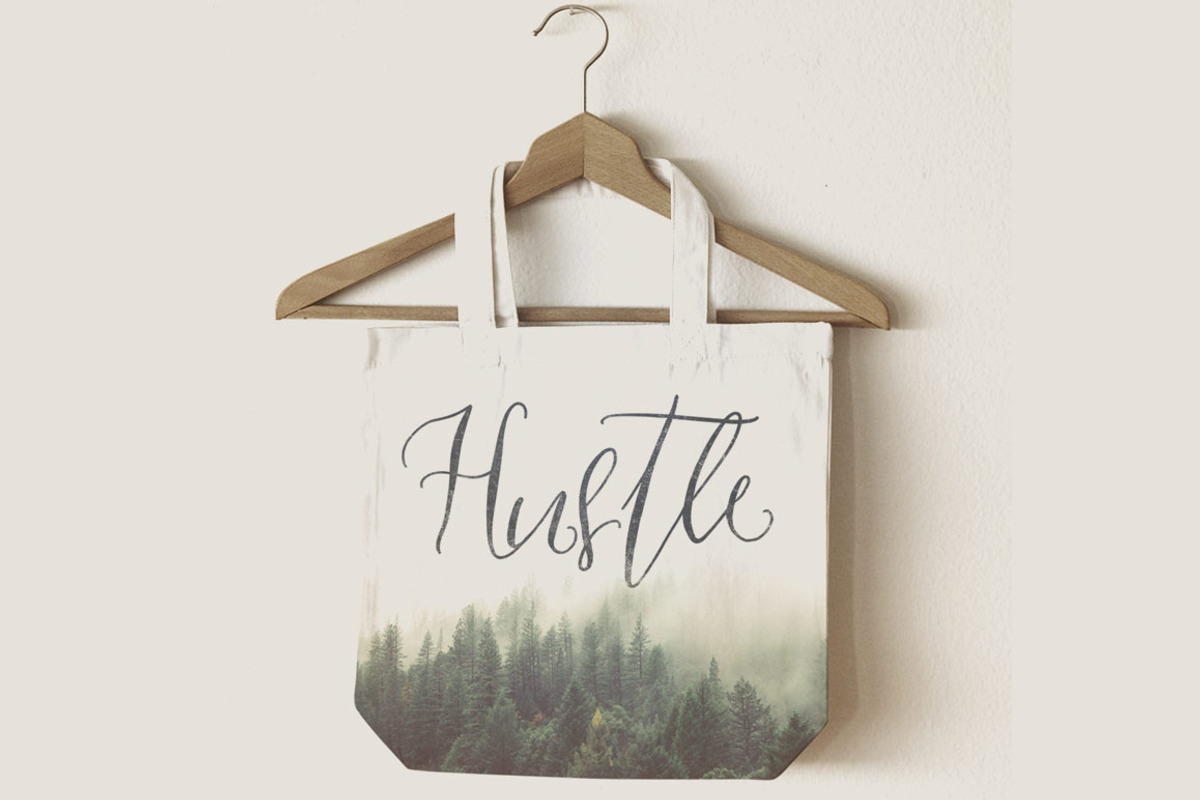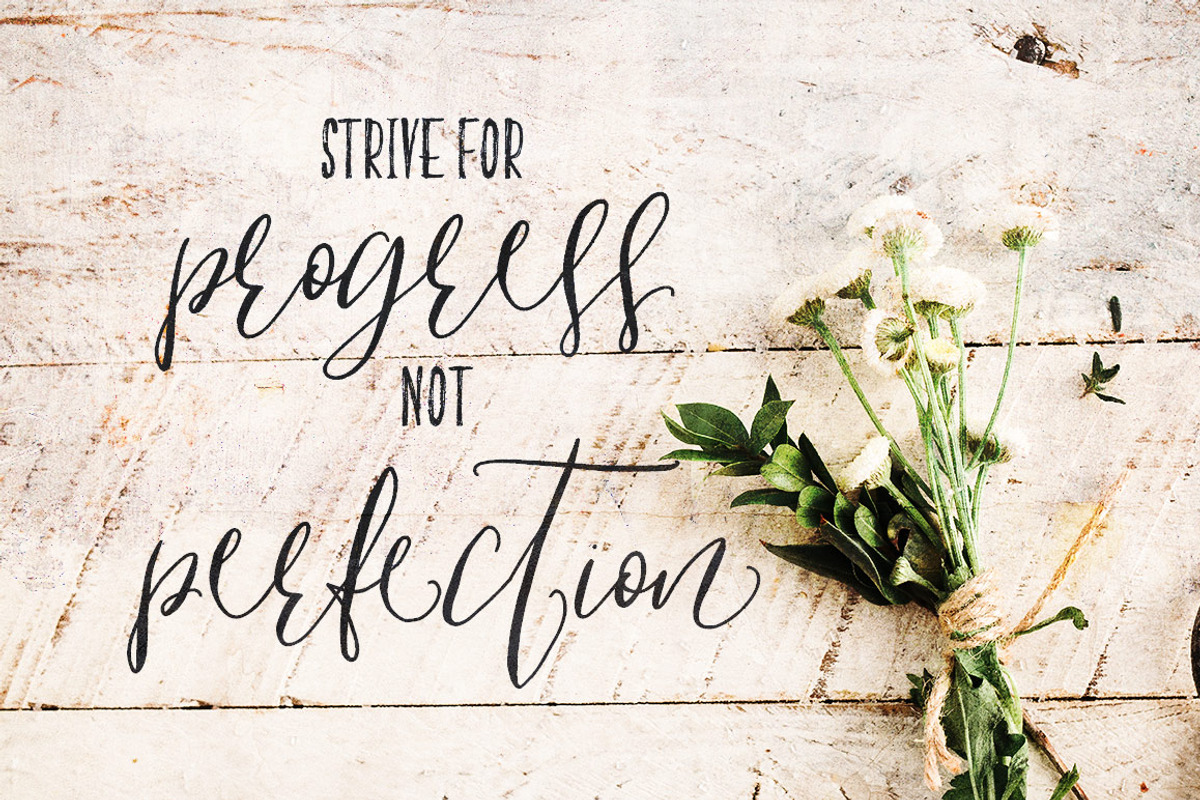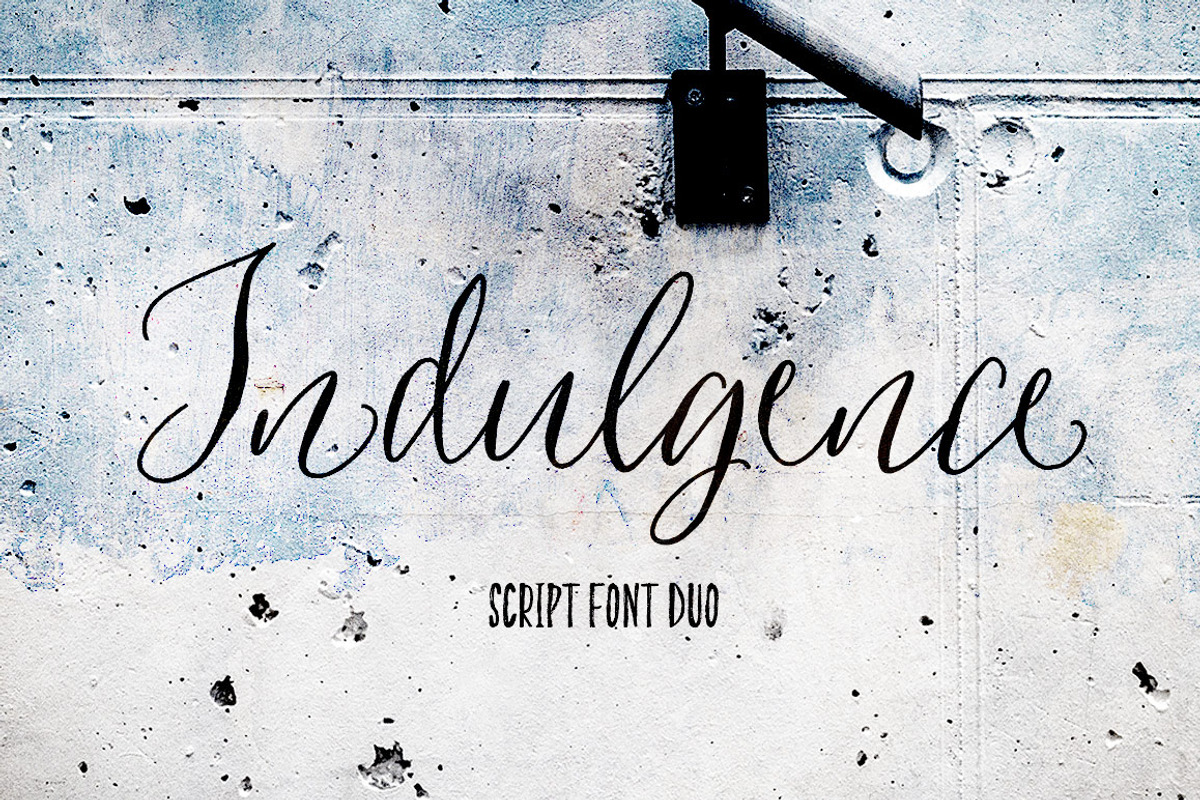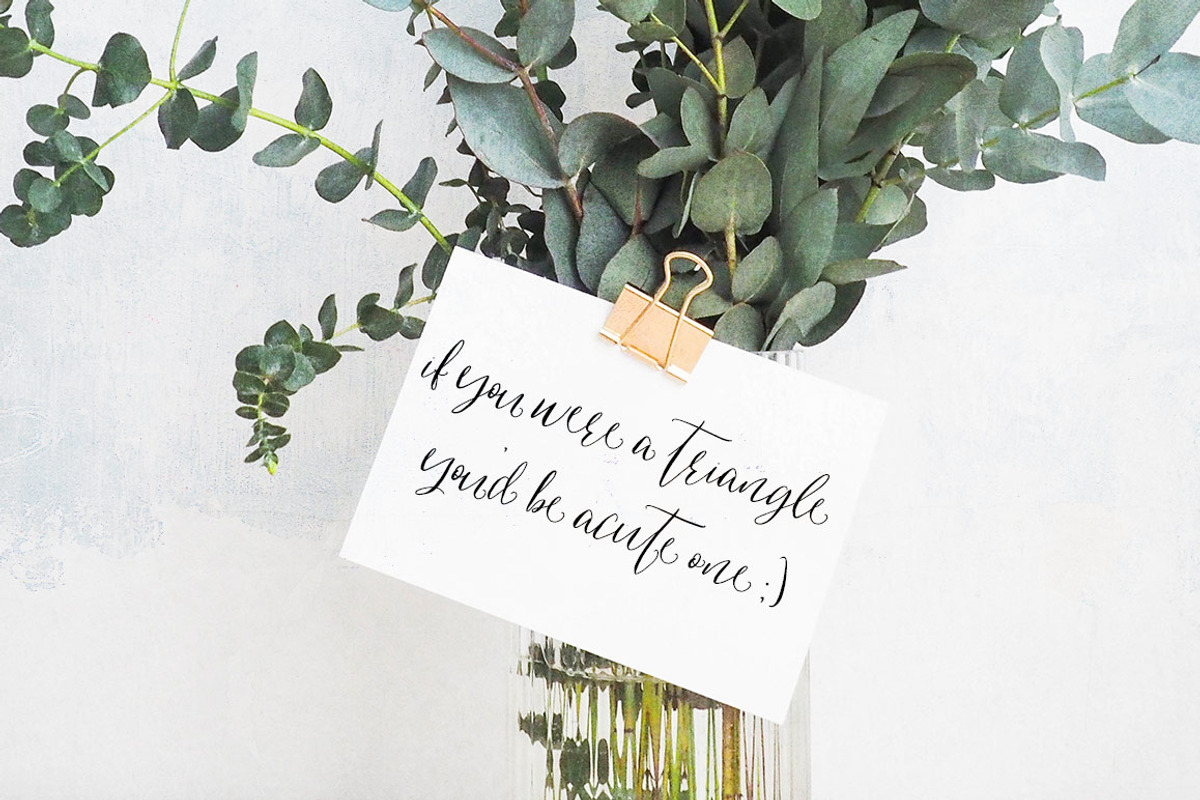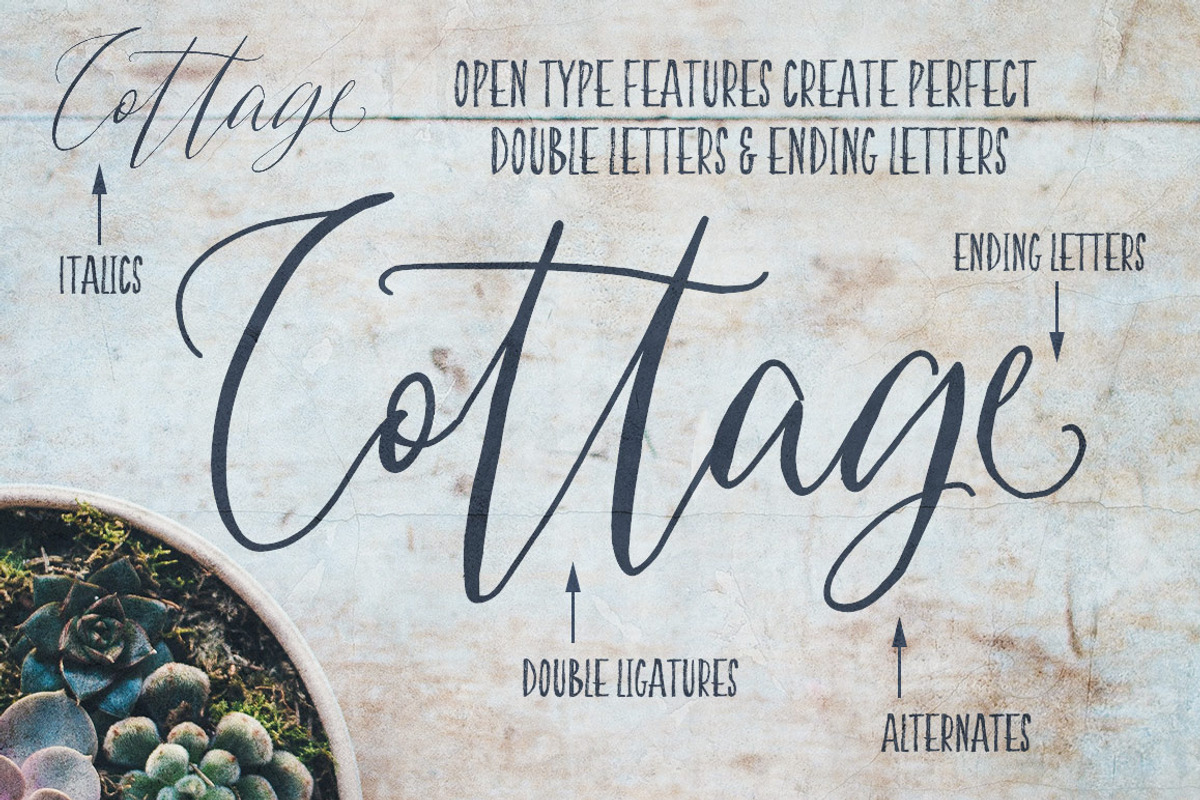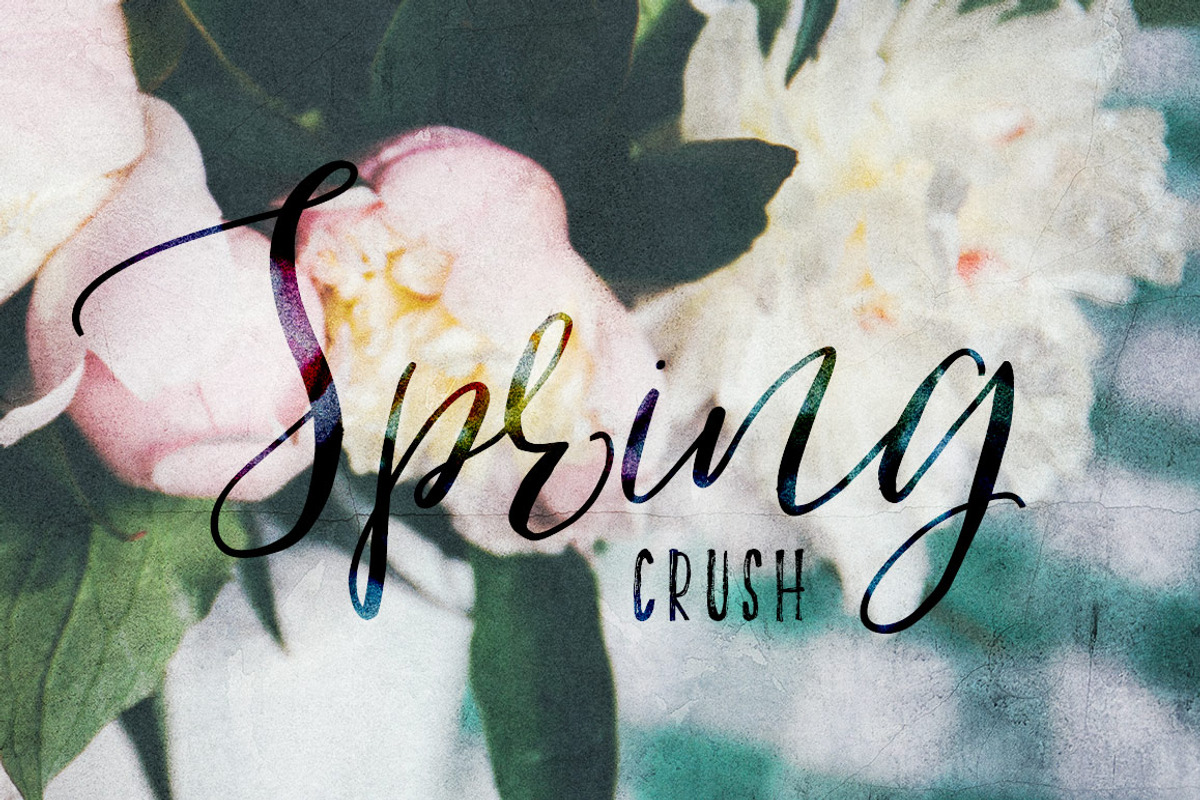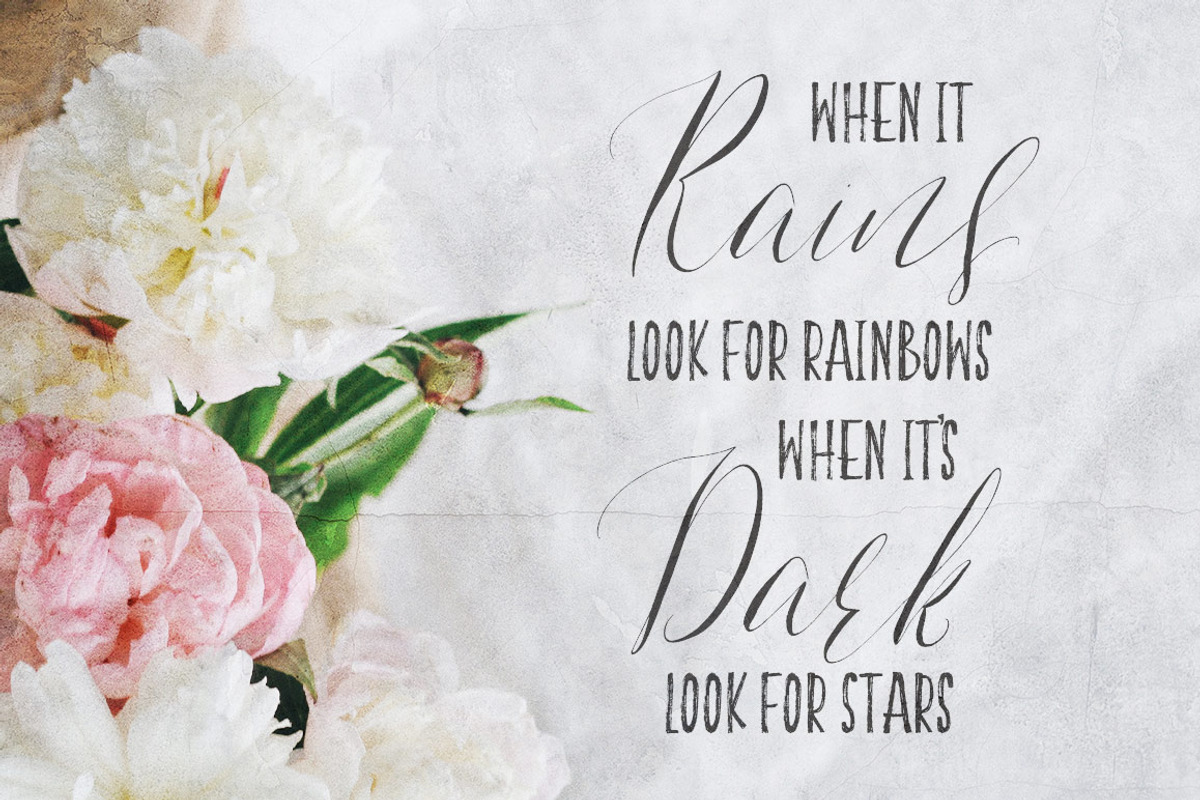
Indulgence Script Font Duo
Introducing the brand new Indulgence Script Font Duo!
Indulgences has elegance yet is still hand drawn, with imperfections, alternates, double ligatures, bold and italic versions.
Open Type Features include double ligatures and ending letters, and for those that don't have access to Open Type there is a font file just for the alternates! You can also access the ending letters and double letters with the Character Map in whatever program you are using.